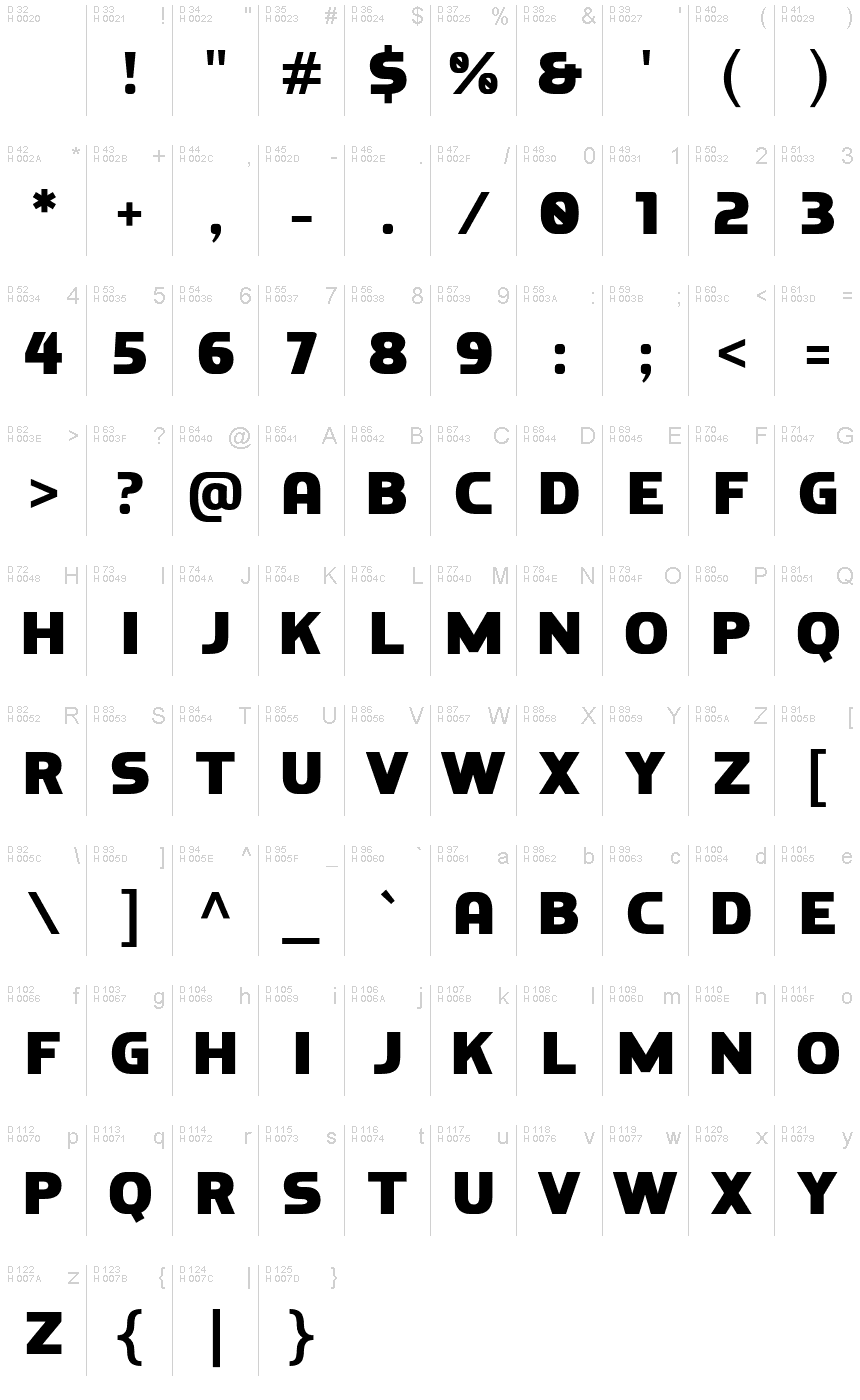
Roti-Regular
Meet Roti, the bold and dynamic sans serif font designed by Drizy Studio. With its extra-bold weight, Roti is perfect for projects that require a strong and impactful presence. Its clean lines and versatile style make it suitable for a variety of design needs, from branding and advertising to editorial layouts and web design. Whether you're looking to make a statement with your typography or simply need a reliable font that can handle any project, Roti has got you covered. Try it out today and see the difference it can make in your designs!